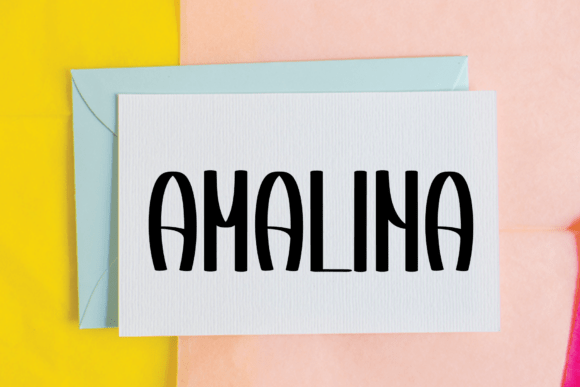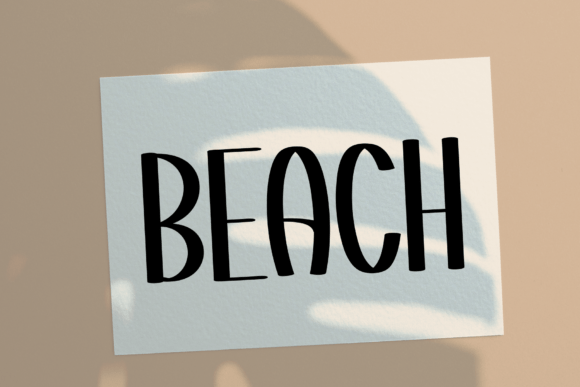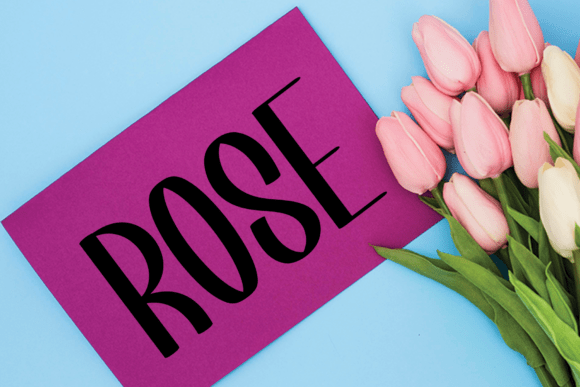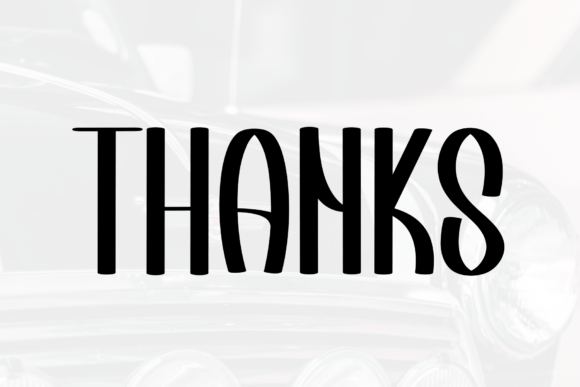
Introducing Blacksoul Font: The Ultimate Handwritten Marker Font for Designers and Crafters
Are you tired of using the same old fonts for your designs? Look no further! Blacksoul Font is a game-changing handwritten font that is sure to elevate your branding, logos, and marketing materials to the next level. With its unique marker-drawn aesthetic, Blacksoul exudes a relaxed and sporty feel that is perfect for designers and crafters looking to add a touch of luxury and elegance to their work.
The Characteristics of Blacksoul Font
Blacksoul Font is a carefully crafted handwritten font that mimics the look of a marker-drawn design. Its distinctive features include:
- Marker-drawn aesthetic: Blacksoul Font has a unique, hand-drawn look that gives it a personal and human touch.
- Relaxed and sporty feel: The font’s casual vibe makes it perfect for designs that require a laid-back, effortless feel.
- Luxurious and elegant: Despite its casual nature, Blacksoul Font still manages to convey a sense of sophistication and refinement.
Use Cases for Blacksoul Font
Blacksoul Font is an incredibly versatile font that can be used in a wide range of design applications, including:
- Branding and logos: Create a lasting impression with a unique and memorable logo that showcases your brand’s personality.
- Wedding supplies and greeting cards: Add a touch of elegance and sophistication to your wedding designs and greeting cards.
- Fashion and lookbooks: Use Blacksoul Font to create stylish and fashion-forward designs that showcase your brand’s aesthetic.
- Marketing promotions: Stand out from the crowd with eye-catching marketing materials that feature the Blacksoul Font.
Why Designers and Crafters Love Blacksoul Font
Blacksoul Font has quickly become a favorite among designers and crafters due to its unique characteristics and versatility. Here are just a few reasons why:
- Easy to read: Despite its handwritten nature, Blacksoul Font is surprisingly easy to read, making it perfect for designs that require a personal touch.
- Highly customizable: Experiment with different colors, textures, and design elements to make your Blacksoul Font design truly unique.
- Time-saving: With Blacksoul Font, you can create professional-looking designs in a fraction of the time it would take to create them from scratch.
Tips for Using Blacksoul Font Effectively
To get the most out of Blacksoul Font, follow these simple tips:
- Pair it with complementary fonts: Combine Blacksoul Font with other fonts to create a visually appealing design that showcases your creativity.
- Experiment with colors and textures: Don’t be afraid to try out different colors and textures to add depth and interest to your design.
- Keep it simple: Don’t overcomplicate your design – sometimes, less is more, and Blacksoul Font can shine on its own.
Blacksoul Font is a game-changing handwritten font that is sure to elevate your designs to the next level. With its unique marker-drawn aesthetic, relaxed and sporty feel, and luxurious and elegant vibe, it’s the perfect choice for designers and crafters looking to add a touch of sophistication to their work. Whether you’re creating branding materials, wedding supplies, or marketing promotions, Blacksoul Font is the ultimate tool for creating stunning designs that showcase your creativity and style.